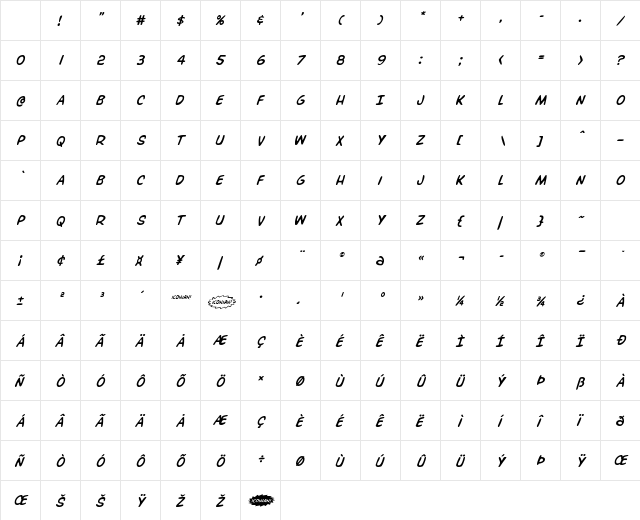
Overstreet Bible is a composed and adaptable typeface that performs quietly and consistently across a wide range of design contexts. The slanted form adds forward momentum and visual energy.
Pro Tip: Use Overstreet Bible for emphasis, pull quotes, and subheadings where its slanted energy can add rhythm to the layout.